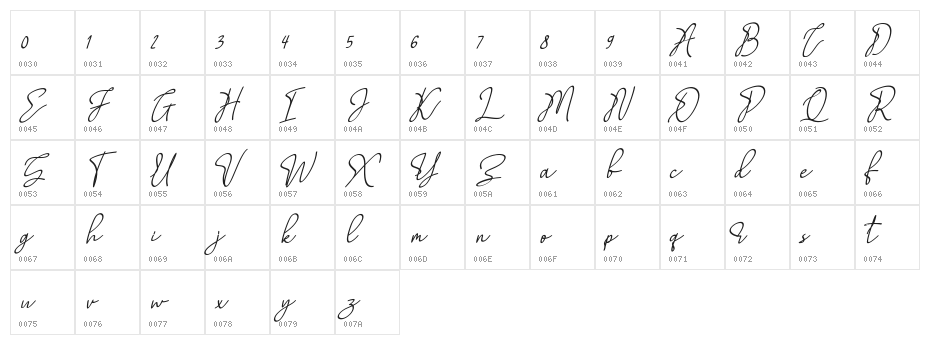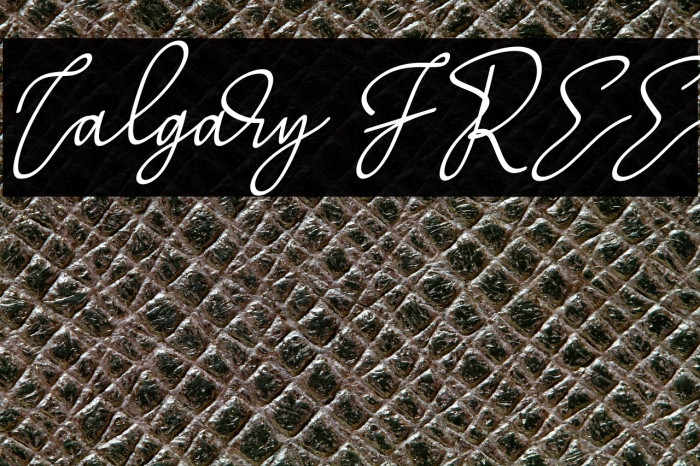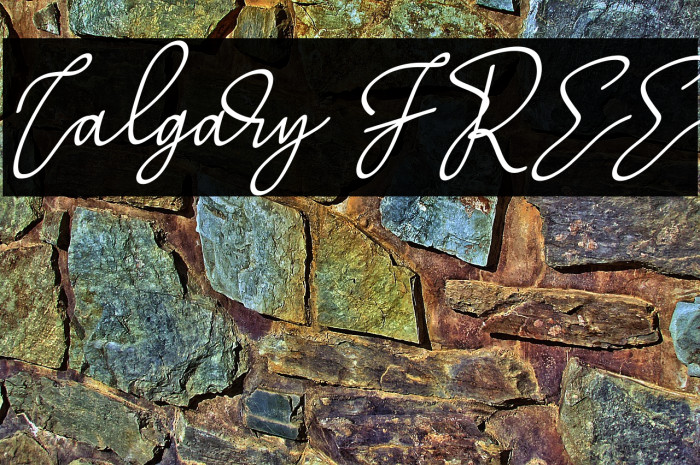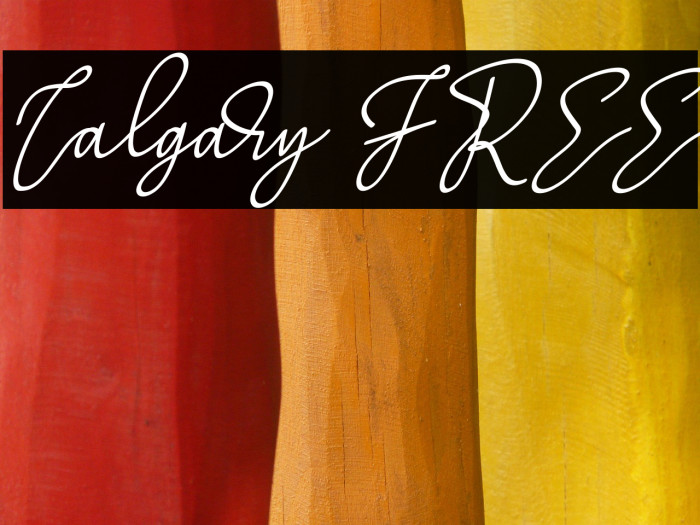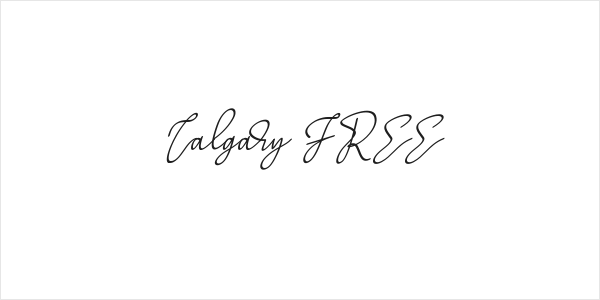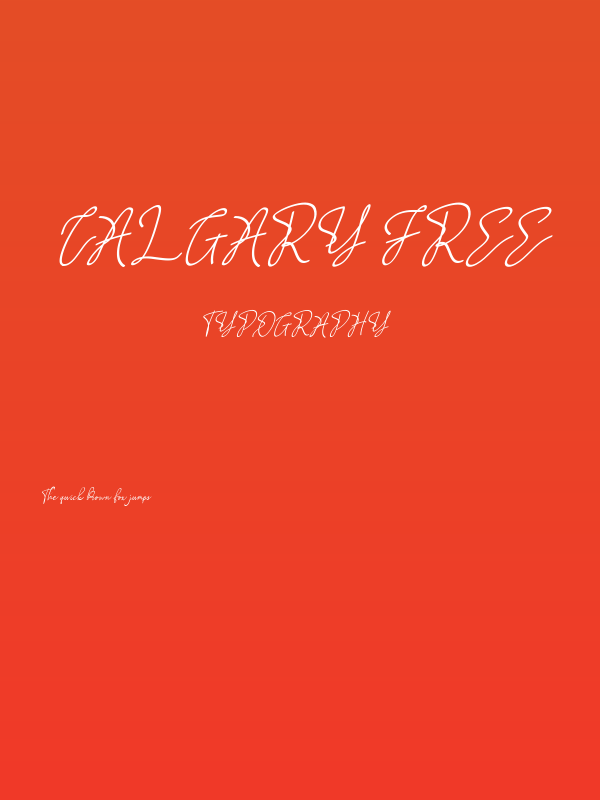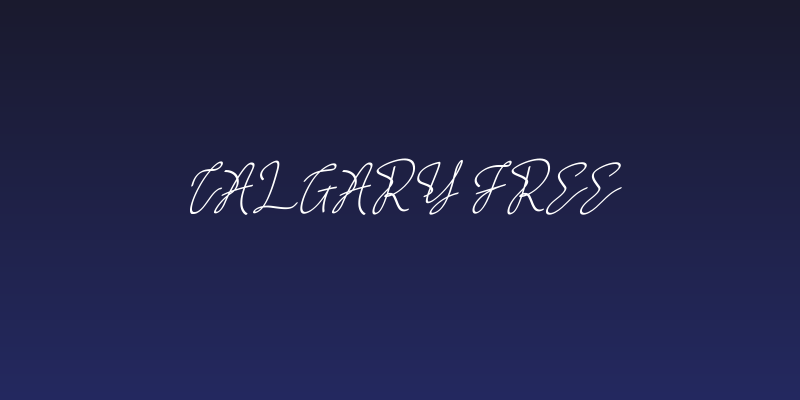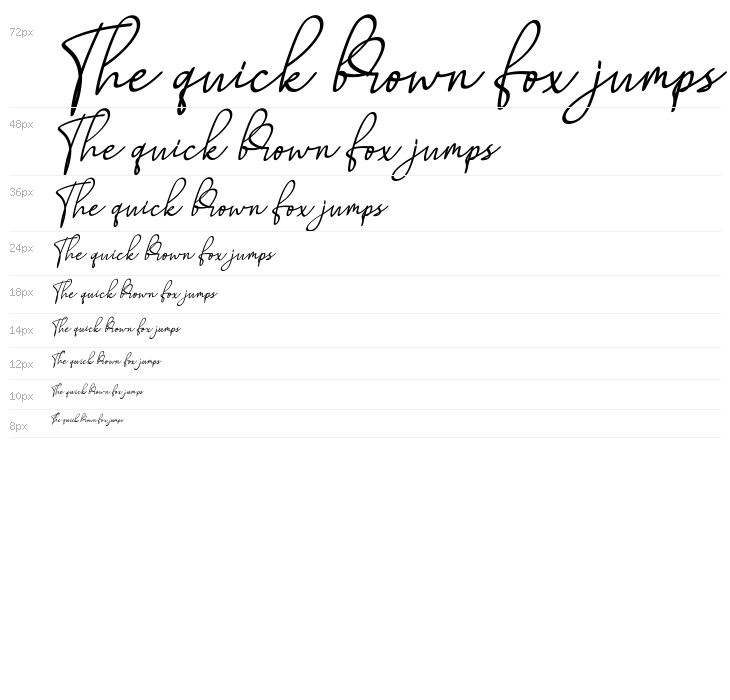
Calgary FREE Font
Calgary FREE Description
This font features an elegant and fluid script style, characterized by its flowing, interconnected letters that mimic the natural handwriting of a skilled calligrapher. The uppercase letters are tall and graceful, with sweeping ascenders and descenders that add a touch of sophistication. The lowercase letters maintain a consistent rhythm and balance, enhancing readability while preserving the artistic flair. The numerals are clear and distinct, complementing the overall aesthetic. This font is perfect for projects that require a personal, artistic touch, such as invitations, greeting cards, and branding materials.